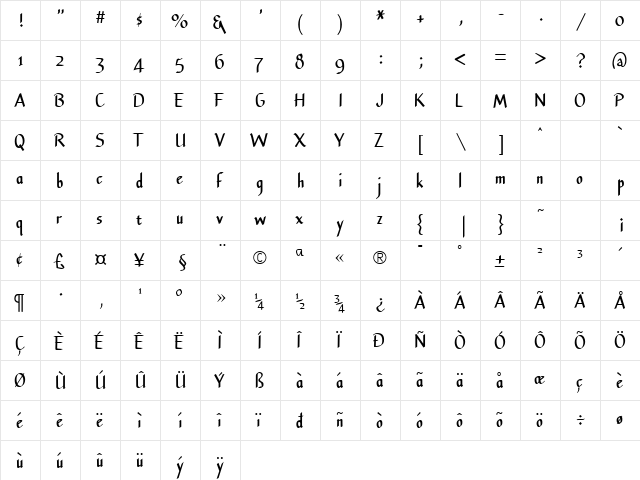
Balboat Bold
Design Context for Balboat Typeface
Balboat takes a measured approach to typography — its balanced proportions and neutral character make it a reliable workhorse for both digital and print work. Its bold stroke weight gives it real presence on the page.